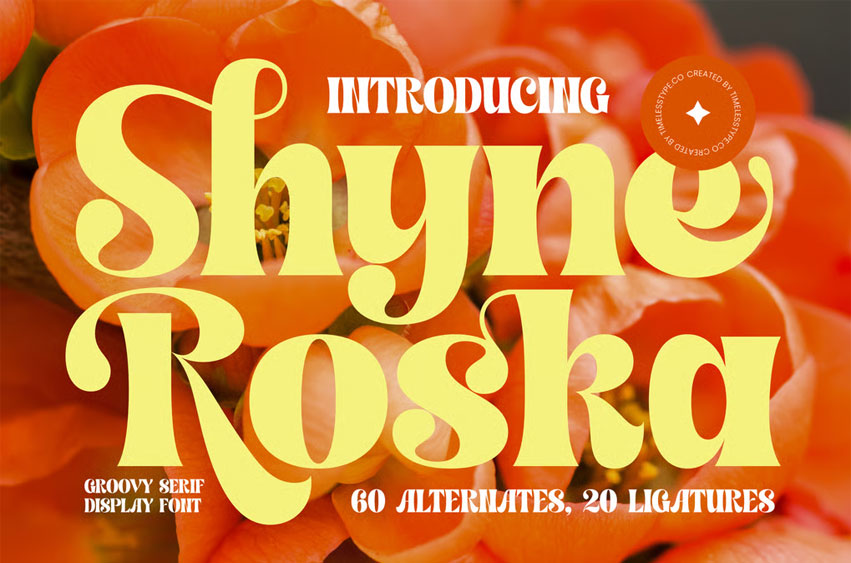
Shyne Roska Font
Shyne Roska Font is a groovy serif display font that radiates vintage charm and bold creativity. With 20 ligatures and 60 alternates, this typeface offers playful curves and expressive letterforms perfect for logos, posters, album covers, and editorial layouts.
Its stylish retro energy blends seamlessly with modern aesthetics, making Shyne Roska an excellent choice for projects that demand a unique and eye-catching design.